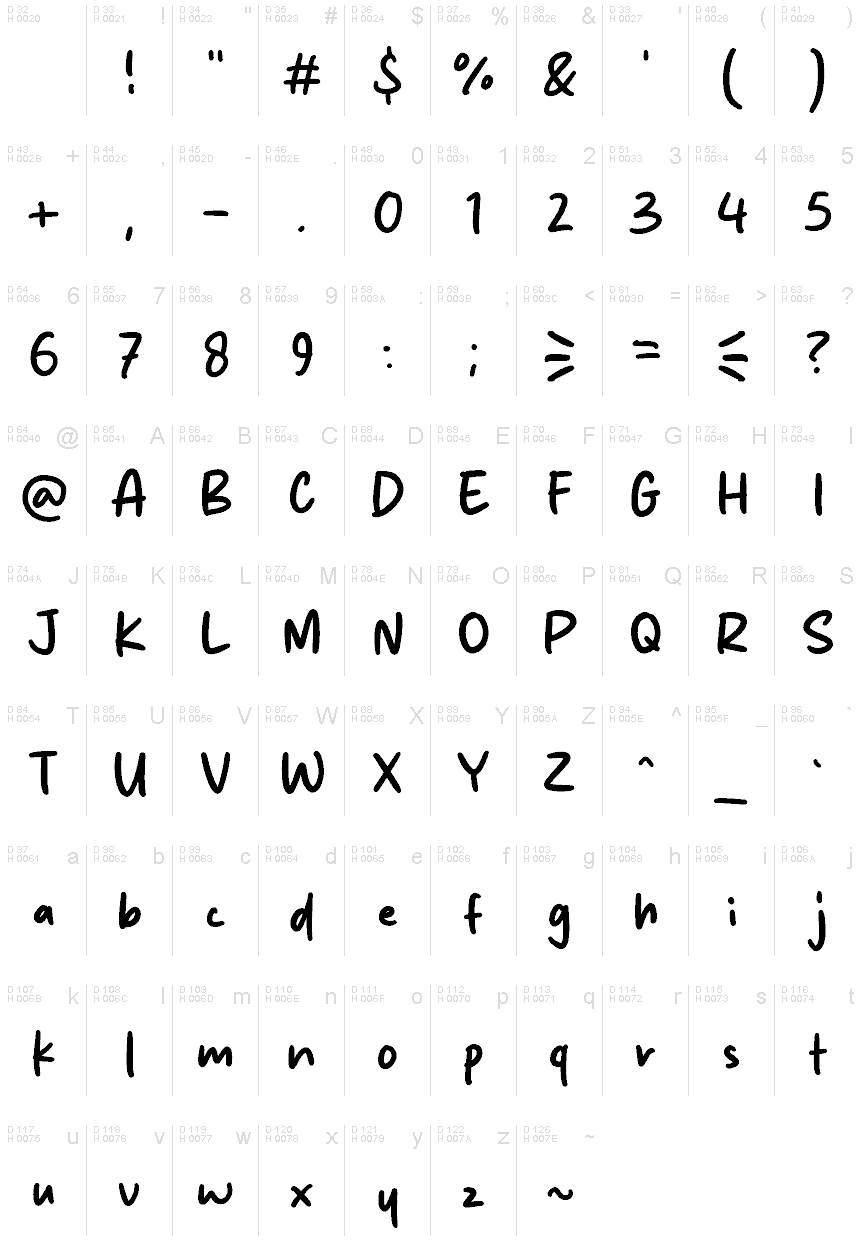
Apple Girls font is a free handwritten font by MJType that is as charming and playful as it sounds. The casual script letters present themselves with such an excellent style, offering the closest visual experience to real handwriting. With the available range of glyphs and characters, you’ll be able to write complete texts in English and other additional languages that use similar alphabets.